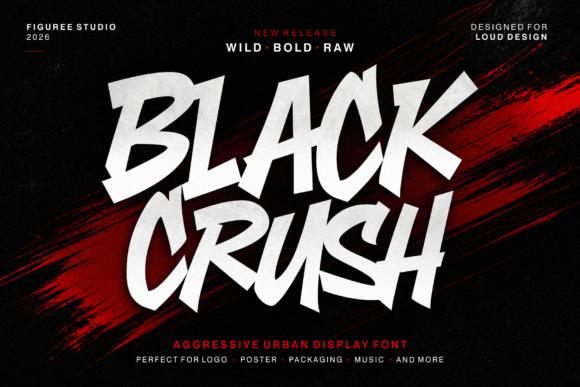
Unleashing the Power of Typography: Introducing Black Crush Font
Have you ever stared at a blank canvas, trying to bring an idea to life, only to feel like something’s missing? Maybe it’s the perfect font that can elevate your design from good to great. For those moments, we introduce the Black Crush Font – a bold and energetic typeface designed to make a statement. This aggressive urban display font is perfect for projects that demand a strong visual impact, from posters and video thumbnails to music artwork and esports graphics.
What sets Black Crush apart is its ability to deliver high visibility across digital and print layouts while maintaining readability. Its sharp character shapes and dynamic proportions create tension, movement, and intensity inside a composition. Whether you’re a designer or a creative professional, the Black Crush Font is an invaluable tool in your arsenal, capable of transforming your designs and leaving a lasting impression.
- Unique Characteristics: The Black Crush Font features a distressed, grunge aesthetic with a bold, edgy feel, making it perfect for designs that require a rugged, urban look.
Black Crush Font Review
As a designer, I recently had the chance to work with the Black Crush Font, and I’m excited to share my honest review with you. ✨ One of the things that stood out to me was the font’s edgy, modern aesthetic. It’s perfect for any design project that needs a bold, eye-catching touch.
- ✨ Unique, distressed texture that adds depth to any design
- ✨ Easy to read, even at smaller font sizes
- ✨ Wide range of language support, making it a great choice for global brands
- ⚠️ Limited flexibility in terms of customization options
- ⚠️ May not be suitable for designs that require a more subtle, elegant look
Overall, I think the Black Crush Font is a great choice for designers who want to add some edge to their projects. While it may not be perfect for every design, its unique texture and modern aesthetic make it a standout choice. With a little creativity, I think it has the potential to be a real game-changer in the world of typography.
The Black Crush Font is perfect for:
- Creating modern and dramatic designs.
- Adding a touch of sophistication to your designs.
- Creating professional and modern-looking documents.